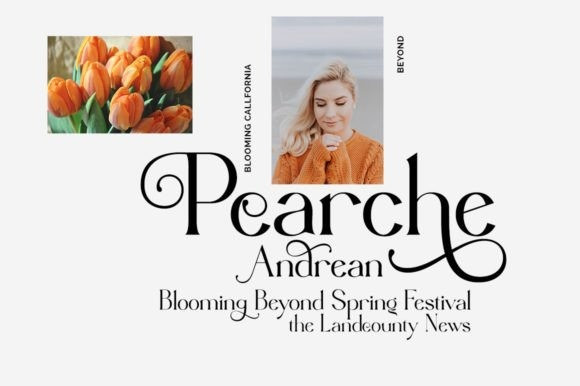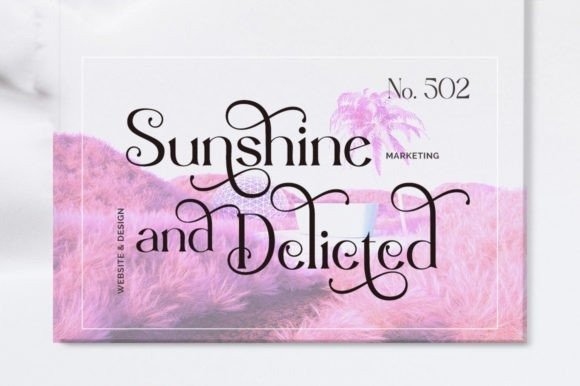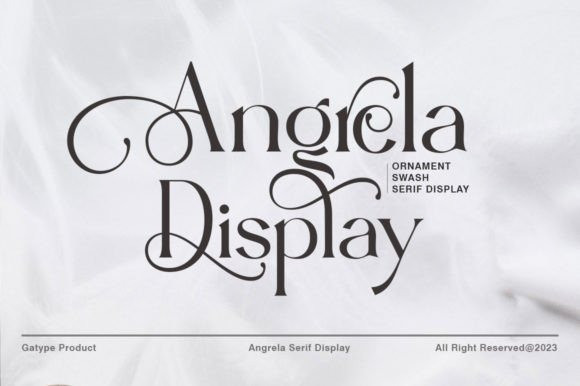
Angrela Display Font
Angrela Display Font is an Ornament serif font with a charming, luxurious, elegant, modern, unique and classy appearance. Great for use for fancy themed projects, branding projects, magazine, social Media, Branding, Logos, website headers or simply as a stylish text overlay onto any background image.